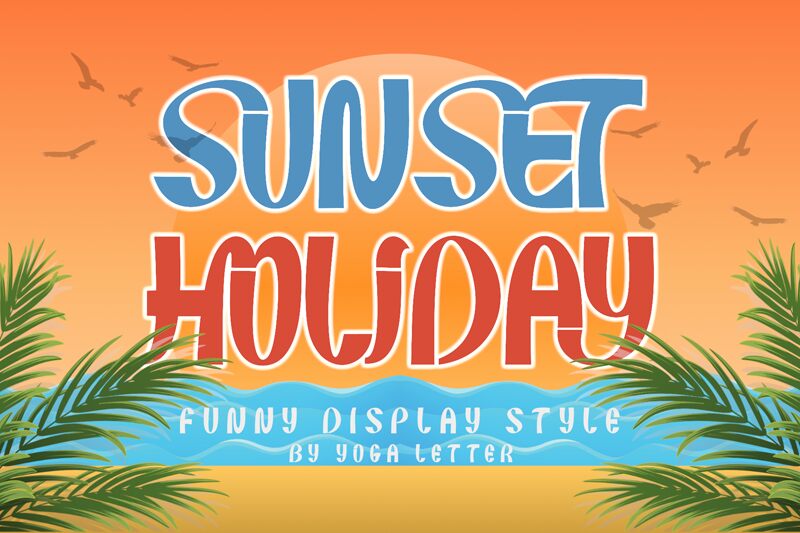
Sunset Holiday font by Yoga Letter is a unique fancy font with a vibrant and contemporary design. Its joyful style builds on retro inspiration which shows in every one of its characters. This free font has a lot to offer in terms of creativity as it makes the perfect option for a laid-back theme free of tension and boredom.